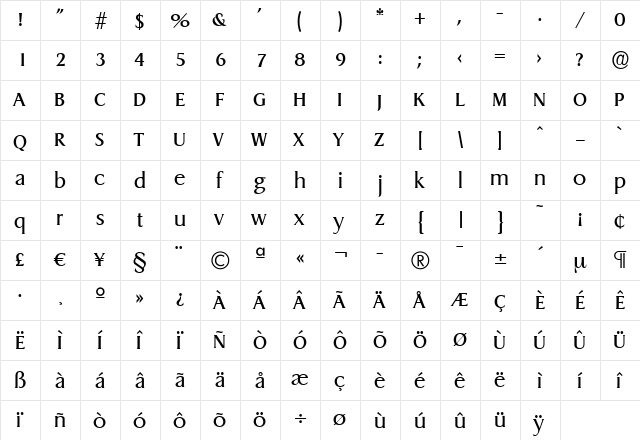
AaronBecker Regular
Design Context for AaronBecker Typeface
AaronBecker takes a measured approach to typography — its balanced proportions and neutral character make it a reliable workhorse for both digital and print work.